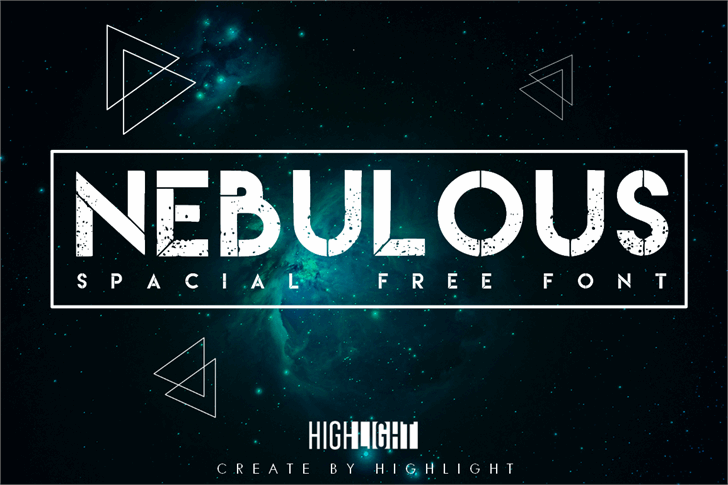
Nebulous Typeface
Hi all, Introducing Nebulous! It is designed and shared by Pobre Nerd. This is a modern style font. Nebulous is a very delicate font, easy to apply into various media, such as: fashion posters, movie posters, promotions, campaigns, and others.